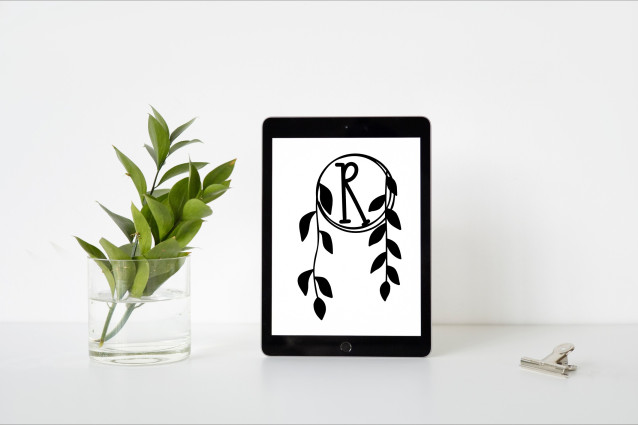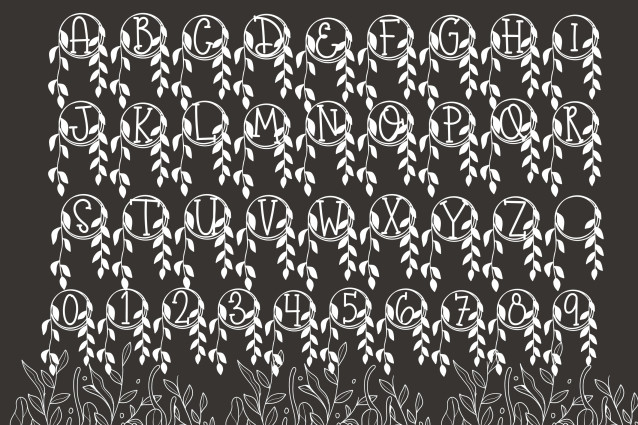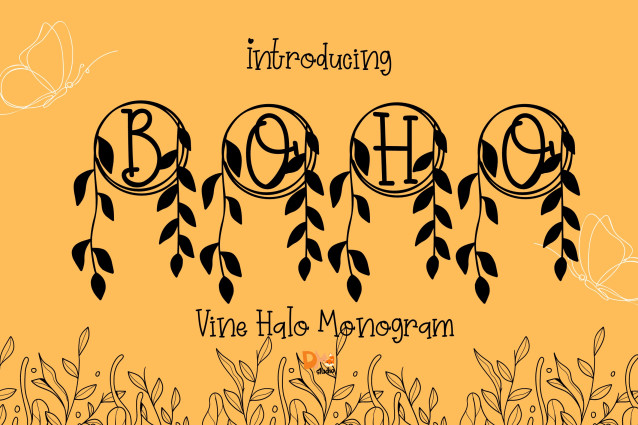
Vine Halo Monogram Font
Vine Halo Monogram Font is a graceful serif monogram font featuring uppercase letters encircled by delicate vine wreaths. Inspired by botanical elegance and minimalist balance, this monogram font is perfect for creating luxurious, nature-themed initials for weddings, branding, crafts, and sophisticated personalized designs.